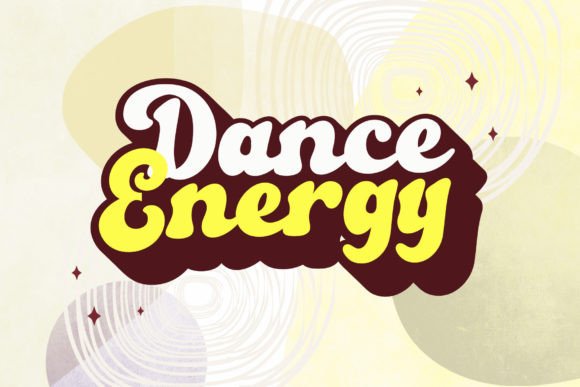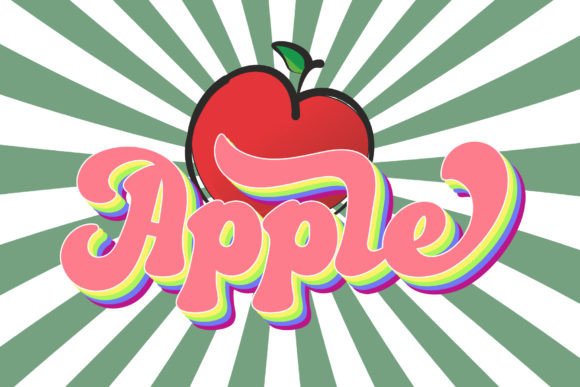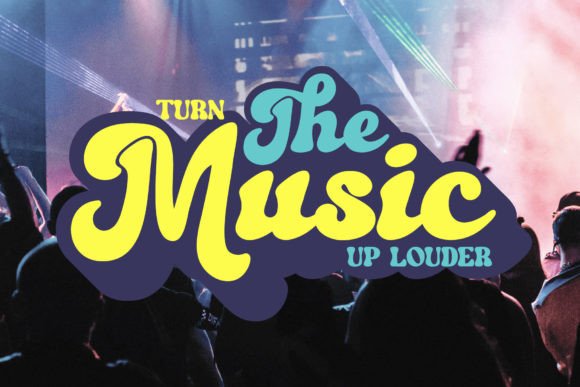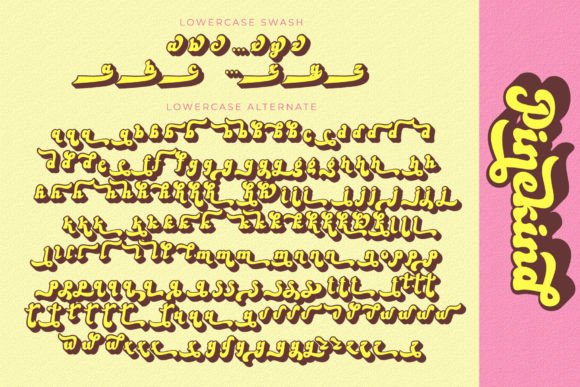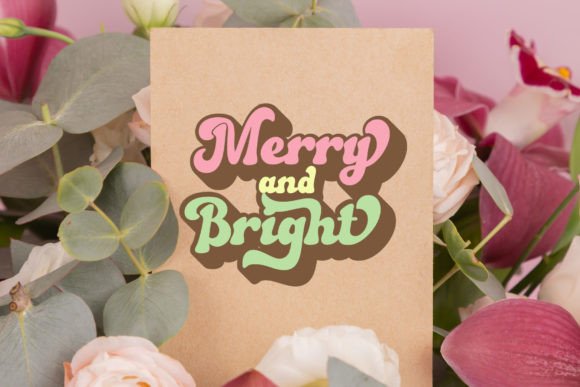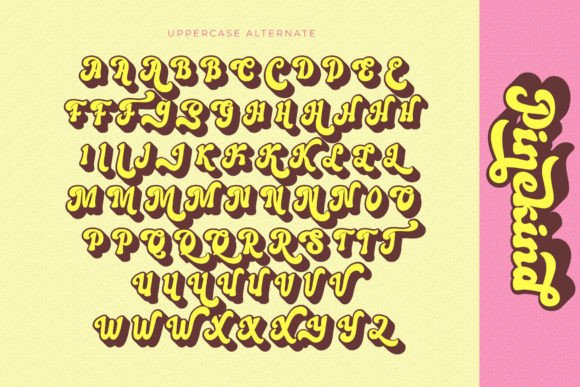
Introduction to Pinekind Font Font
Fonts play a crucial role in design, and the Pinekind Font font is a typeface that brings both character and versatility to any project. Whether you’re working on a branding project, a website, or a print design, the Pinekind Font font offers a unique style that can elevate your work.
Pinekind is a retro script font with groovy and vintage vibes.
This cool, edgy font is perfect for all your projects that require a unique, retro vibe Pinekind is PUA encoded which means you can access all the glyphs and ligature with ease.
The Pinekind Font font is more than just a typeface – it’s a design tool that helps you communicate your message with style and clarity. Its unique character set and versatile design make it suitable for a wide range of applications, from elegant invitations to bold headlines.
With its carefully crafted letterforms and balanced proportions, the Pinekind Font font ensures readability and visual appeal across all mediums.
The Pinekind Font font stands out with its unique design, exceptional readability, and versatility across various design applications.